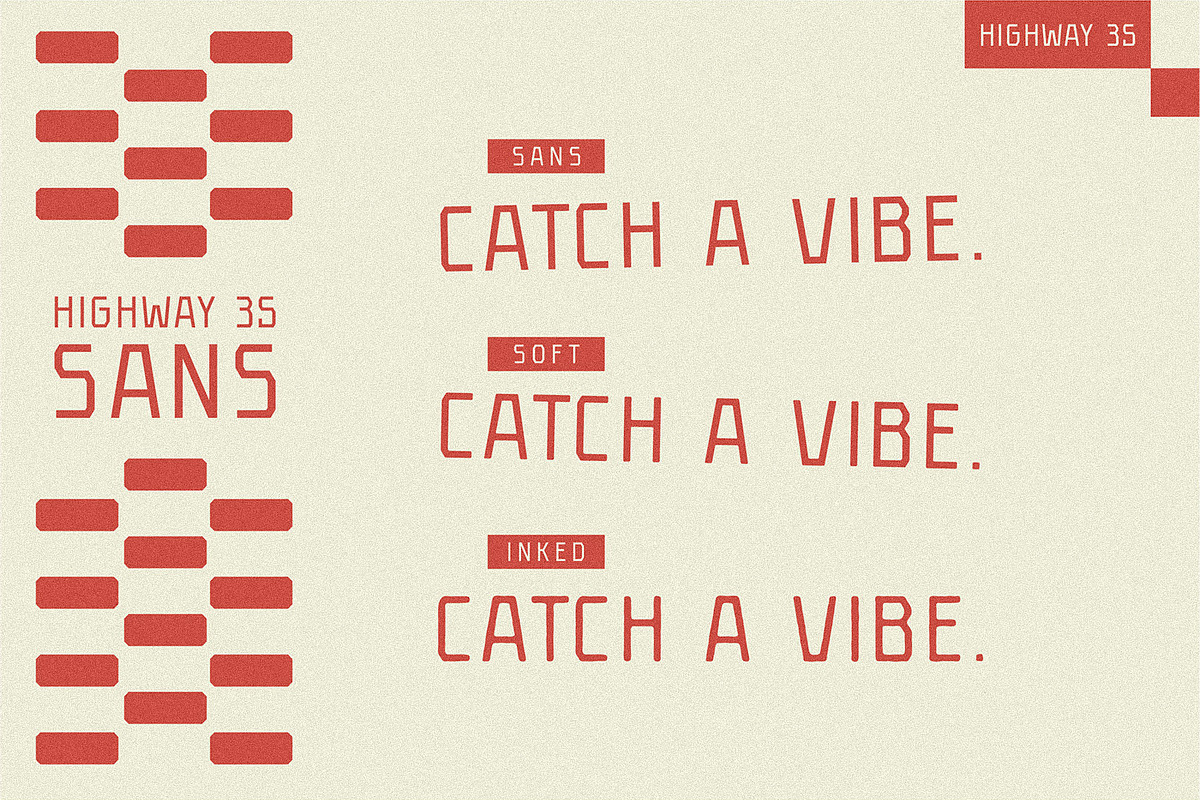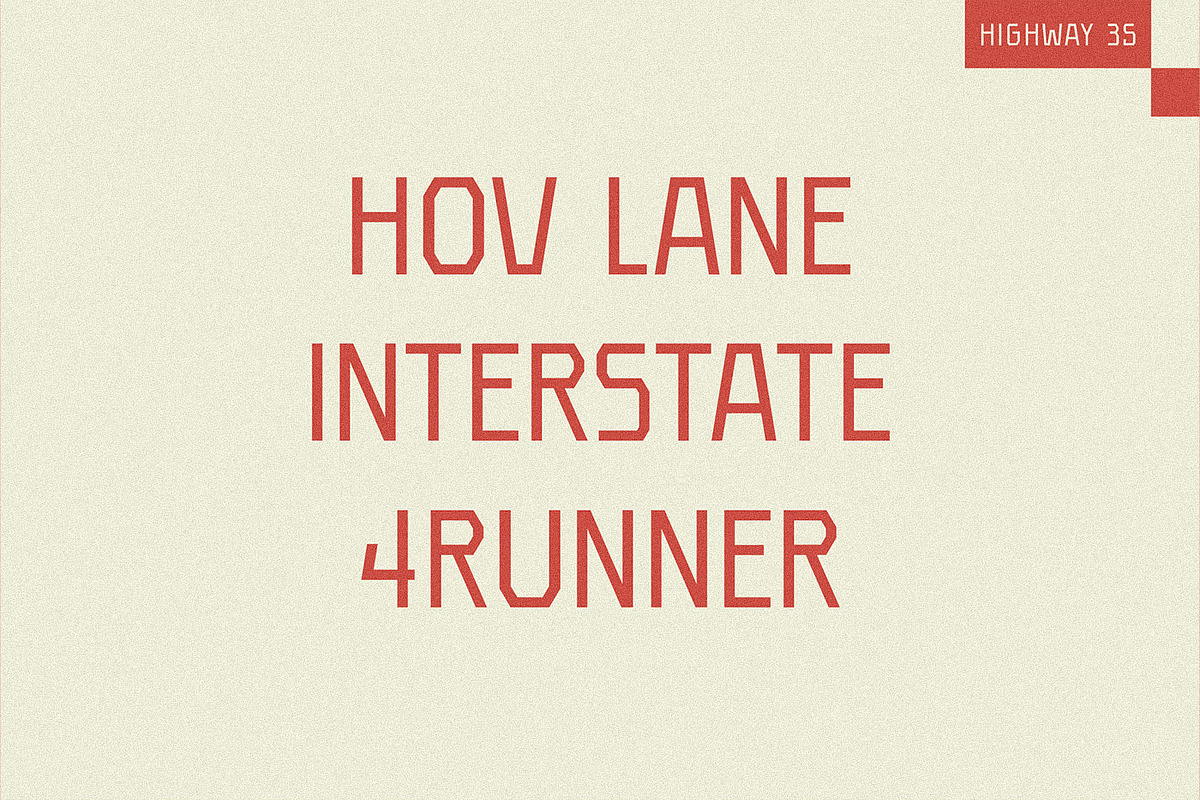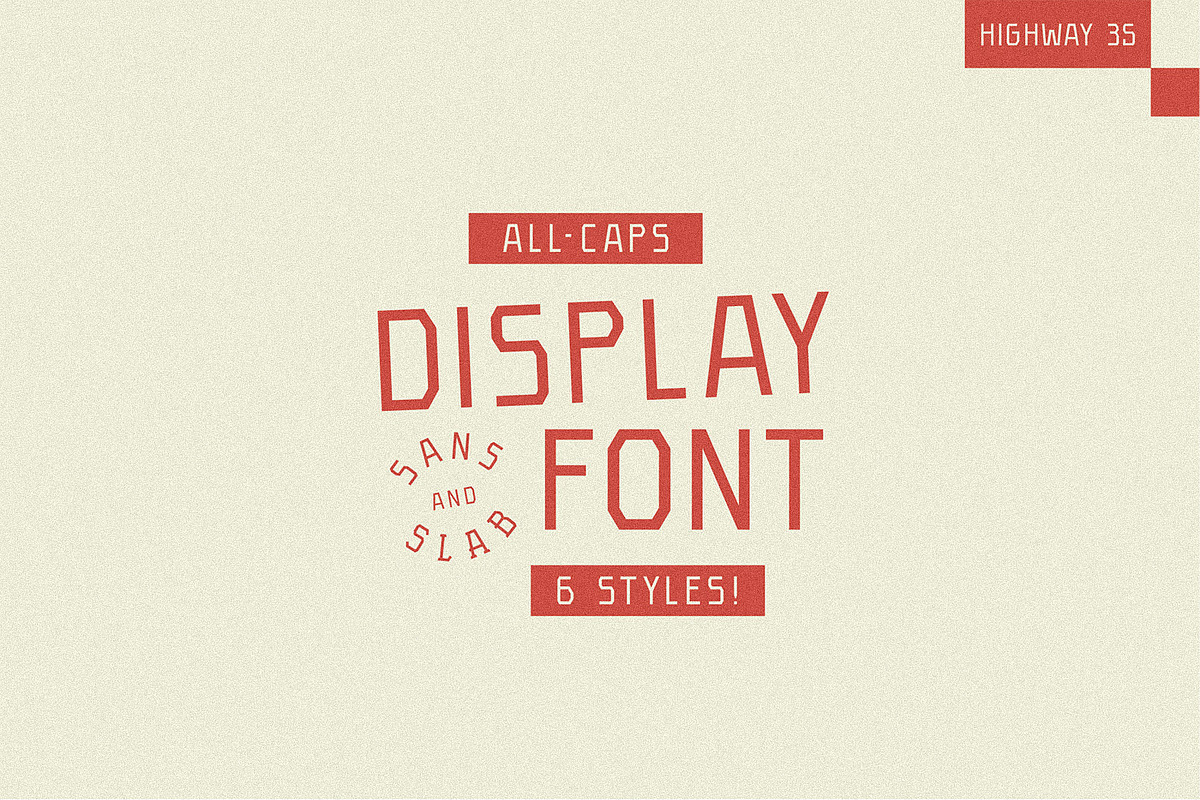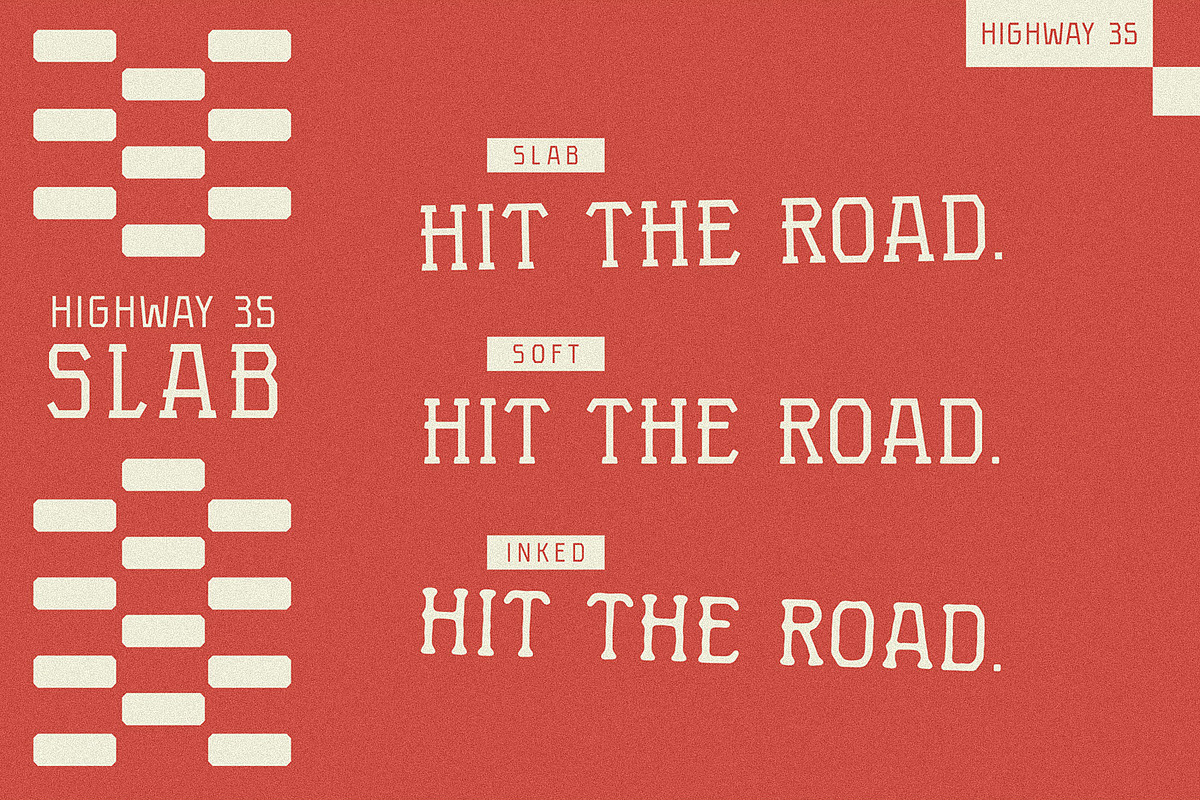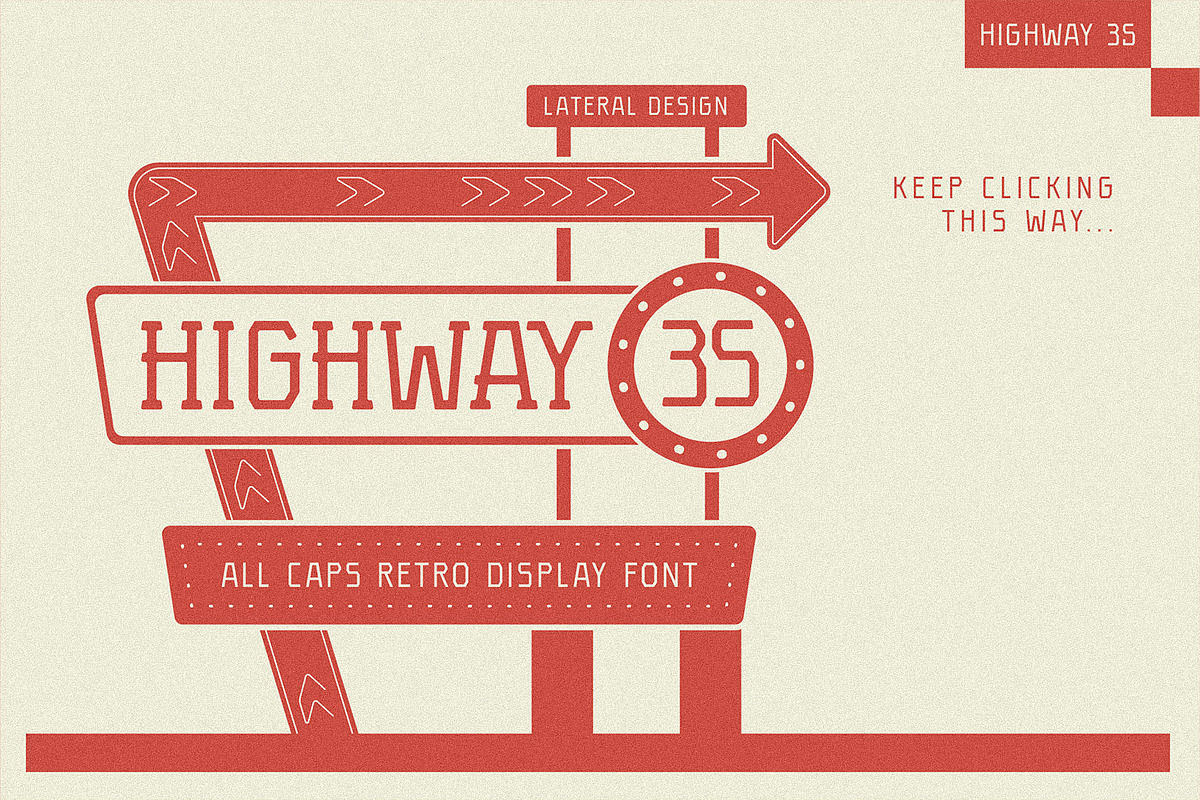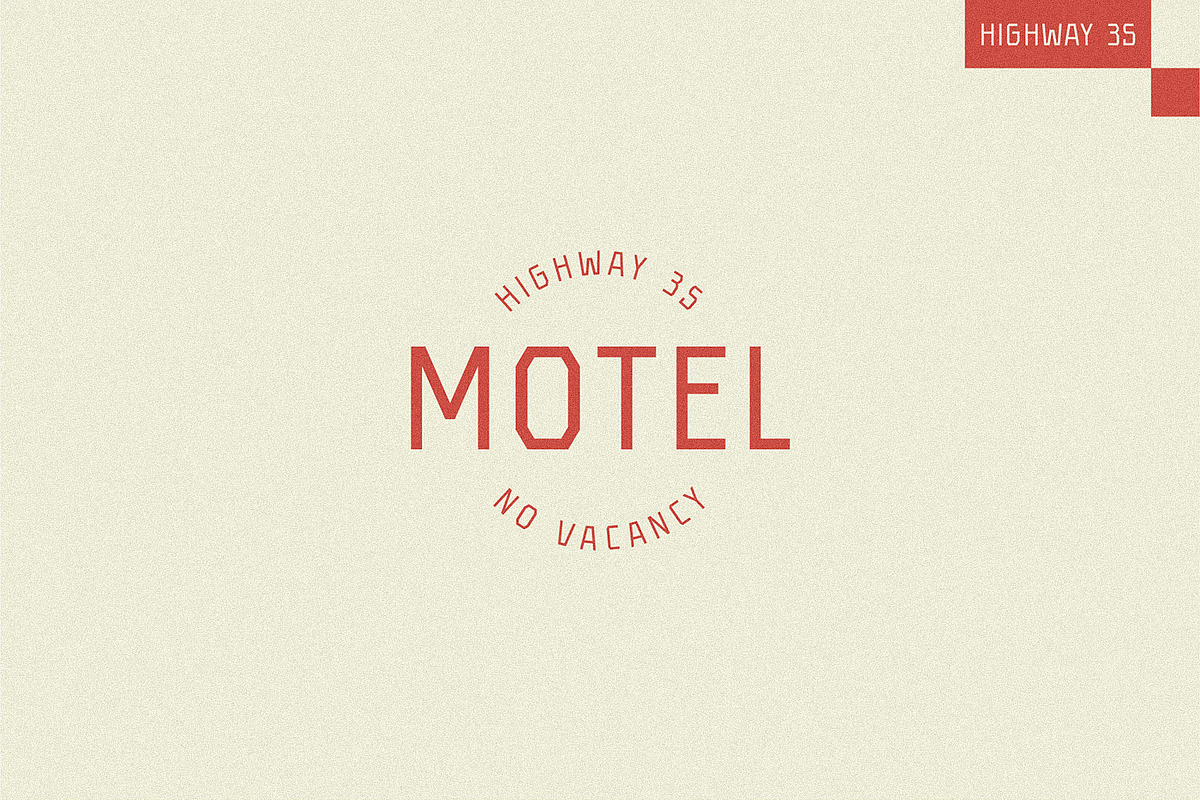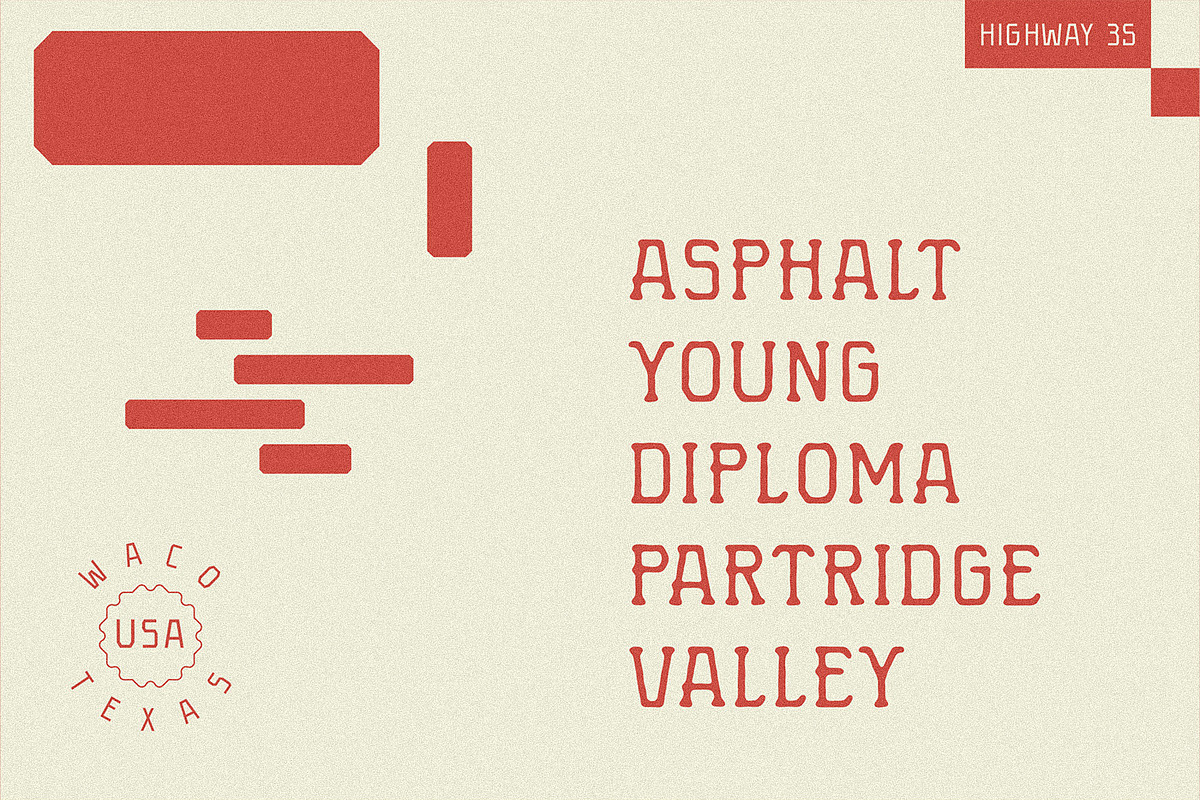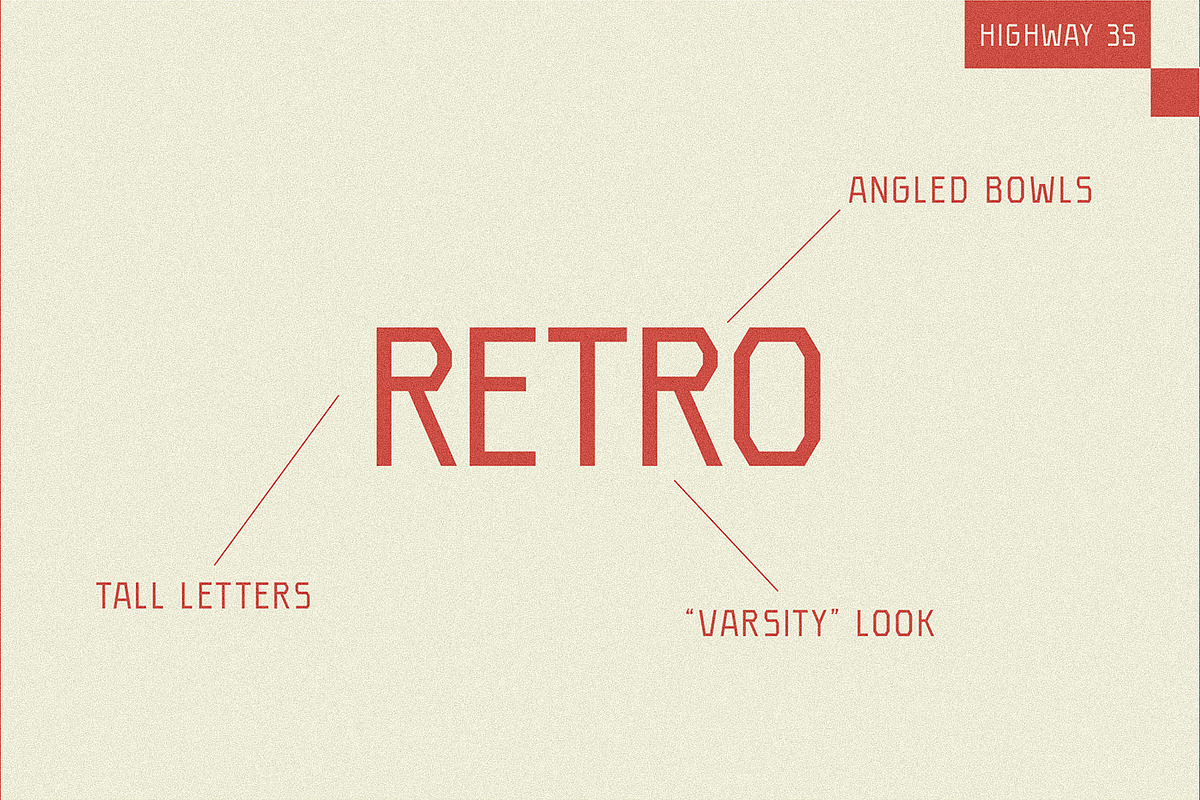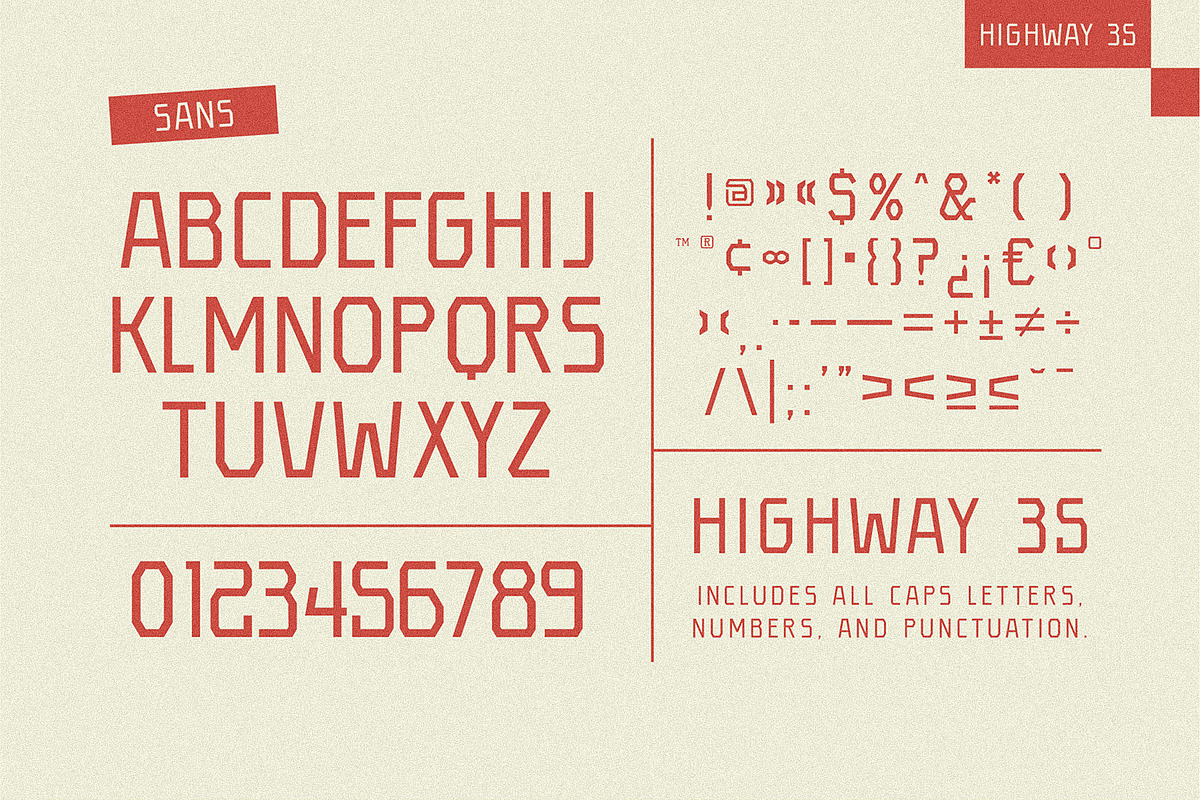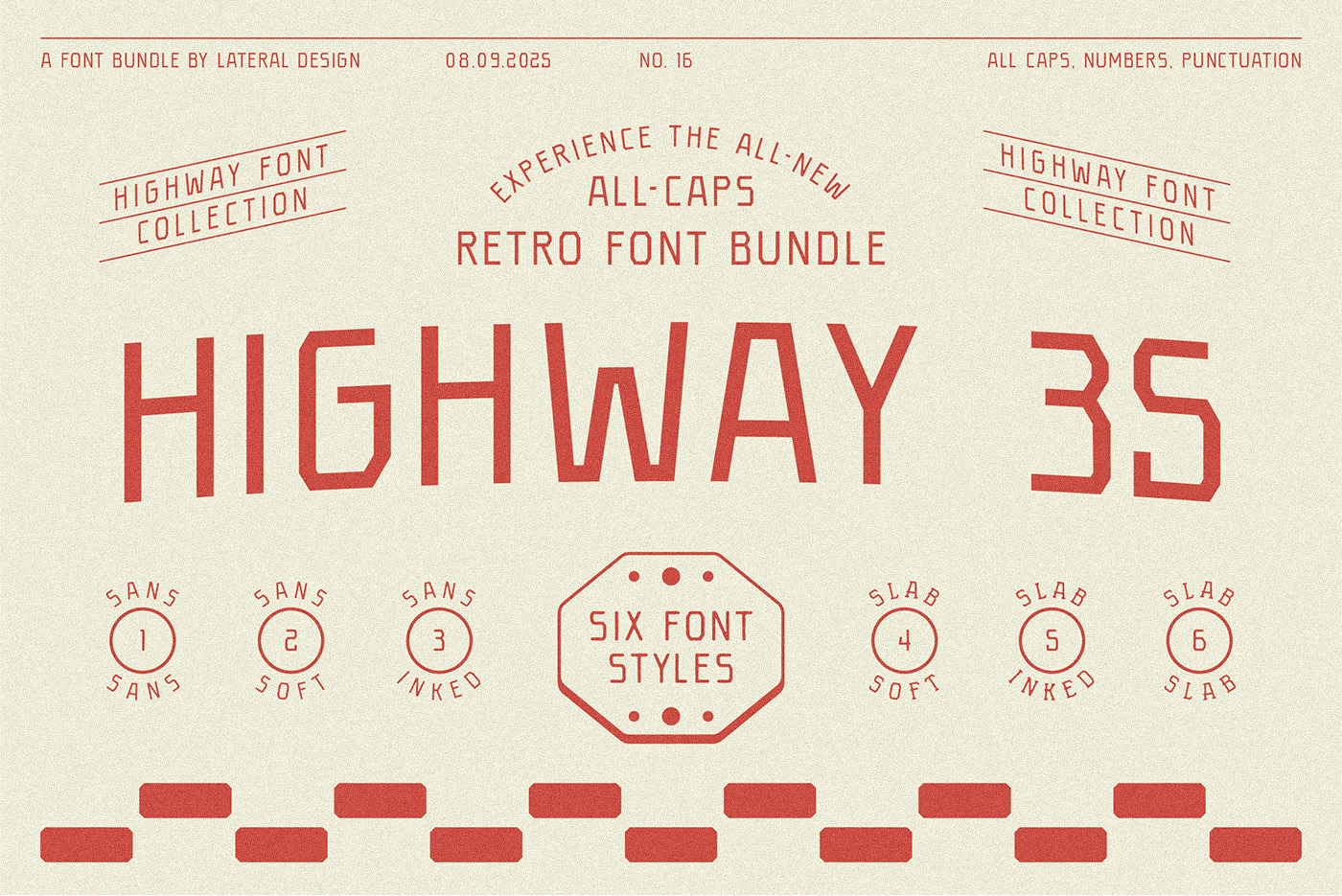
Highway 35 - Retro Font Bundle
All Caps. Retro. Nostalgic. Highway 35 is a collection of 6 unique font styles, including sans-serif, slab-serif, and handwritten (inked) styles. This All-Caps font family is inspired by old motel signs and classic package design typography that utilize near-monospace capital letters for bold headlines. The combination of sans, slab, and handwritten styles makes this font bundle a force to be reckoned with. Highway 35 is a great font family to use for merchandise design, logo design, web design, package design, social media, badges, and more—you name it. Add this versatile bundle to your font arsenal and keep it retro! Cheers.
- 6 Font Styles: Sans, Sans Soft, Sans Inked, Slab, Slab Soft, Slab Inked
- All Caps Letterforms
- Pre-kerned letter spacing for ideal optical spacing
Highway 35 marks our 4th pitstop in our journey creating the Highway Font Collection.